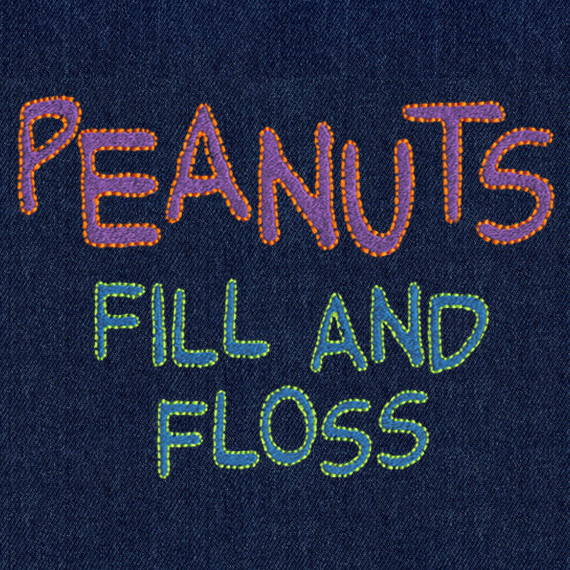
774 Peanuts Caps Fill & Floss Font
774 Peanuts Caps Fill & Floss Font comes in 1", 1.5", 2", 2.5", 3", 3.5", 4", 4.5" & 5" heights based on the capital "A". This Font Has Capital Letters Only — features All 26 Capital Letters (based on the "Peanuts.TTF" computer font which has no lowercase, no numbers and no punctuation marks available). All characters are finished in Fill Stitch with Floss Stitch Outlines. Floss Stitch stitches out on all embroidery machine using standard embroidery machine thread.